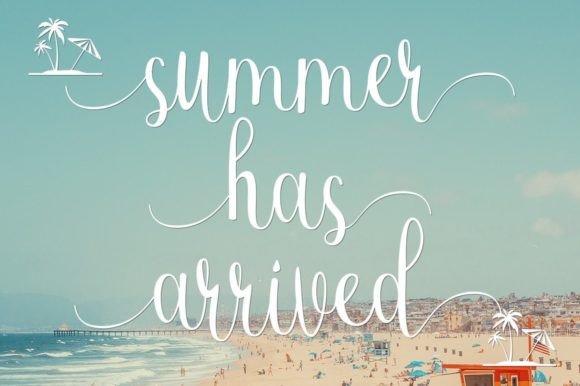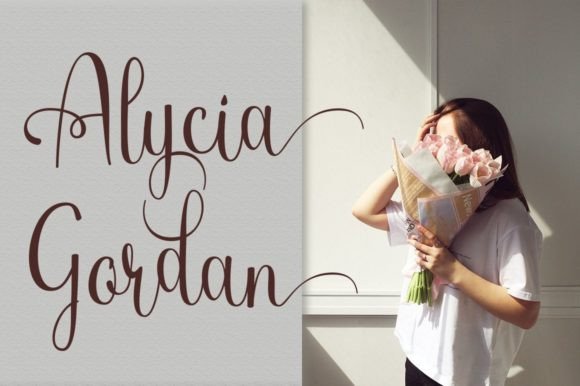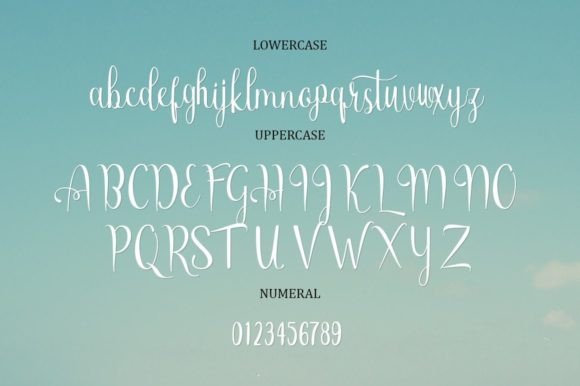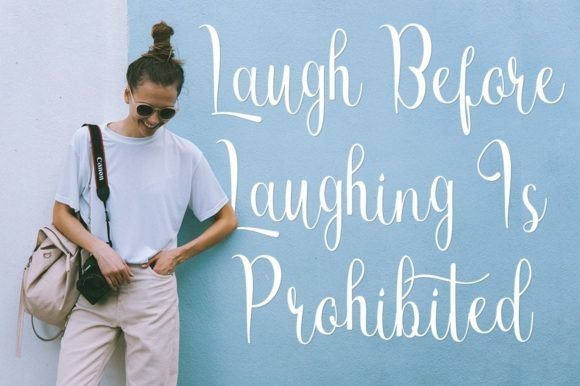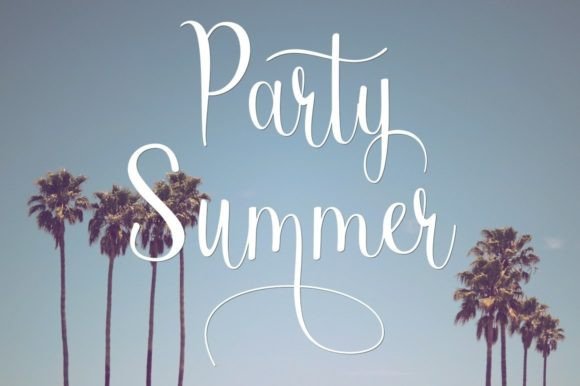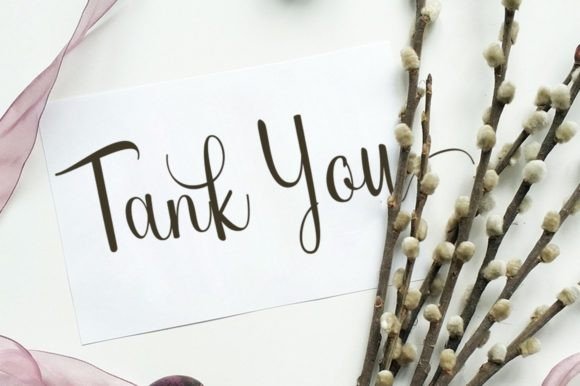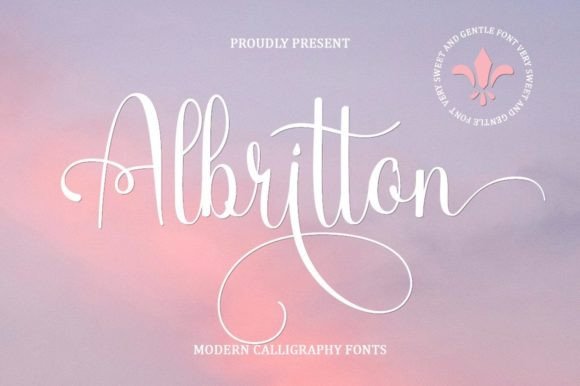
Introducing Albritton Font: Elevate Your Designs with Elegance and Sophistication
In the world of design, fonts play a crucial role in conveying the message and aesthetic of a project. Whether you’re a professional designer, a crafty DIY enthusiast, or a business owner looking to elevate your brand, finding the right font can make all the difference. If you’re on the hunt for a typeface that exudes elegance, sophistication, and a touch of sweetness, look no further than the Albritton Font. This stunning calligraphy script is designed to make your designs stand out, adding a level of refinement and beauty to any project.
The Albritton Font: A Perfect Blend of Sweetness and Elegance
Albritton is more than just a font; it’s a design statement. This beautiful calligraphy script strikes the perfect balance between being sweet and elegant, making it an ideal choice for a wide range of projects. From advertising and branding to graphic design, quotes, wedding designs, logos for online or offline businesses, photography, and more, Albritton brings a level of sophistication that is hard to match. Its flowing lines and curves add a touch of class and professionalism, ensuring that your designs are always perceived in the best possible light.
One of the standout features of the Albritton Font is its versatility. This typeface is not limited to a specific genre or industry, making it a valuable addition to any designer’s toolkit. Here are some of the many ways you can use Albritton to elevate your projects:
- Advertising: Use Albritton to create eye-catching ad copy that captures the attention of your audience and leaves a lasting impression.
- Branding: Establish your brand identity with a typeface that communicates elegance and sophistication.
- Graphic Design: Add a touch of refinement to your graphic designs, from brochures and flyers to posters and banners.
- Quotes and Inspirational Content: Give your quotes and inspirational content a beautiful backdrop that enhances their message.
- Wedding Designs: Create stunning wedding invitations, programs, and decorations with a font that embodies love and elegance.
- Logos: Design memorable logos for online or offline businesses that stand out and tell a story.
- Photography: Use Albritton to add captions and descriptions to your photographs that complement their visual beauty.
Make Your Business More Beautiful
In today’s competitive market, standing out is crucial for any business. The Albritton Font offers a unique opportunity to elevate your brand’s visual identity. By incorporating this elegant typeface into your marketing materials, website, and overall brand strategy, you can create a cohesive and beautiful visual experience for your customers. This not only enhances your brand’s aesthetic but also communicates a sense of quality and attention to detail.
The Albritton Font is a game-changer for designers and crafters looking to add a touch of elegance and sophistication to their projects. With its sweet calligraphy script, versatility, and PUA encoding, Albritton is the perfect typeface for anyone aiming to create stunning designs that stand out. Whether you’re working on a branding project, creating beautiful wedding designs, or simply looking to enhance your graphic design skills, Albritton is an invaluable resource. Make your designs more beautiful and impactful with Albritton Font – the perfect blend of style, elegance, and creativity.